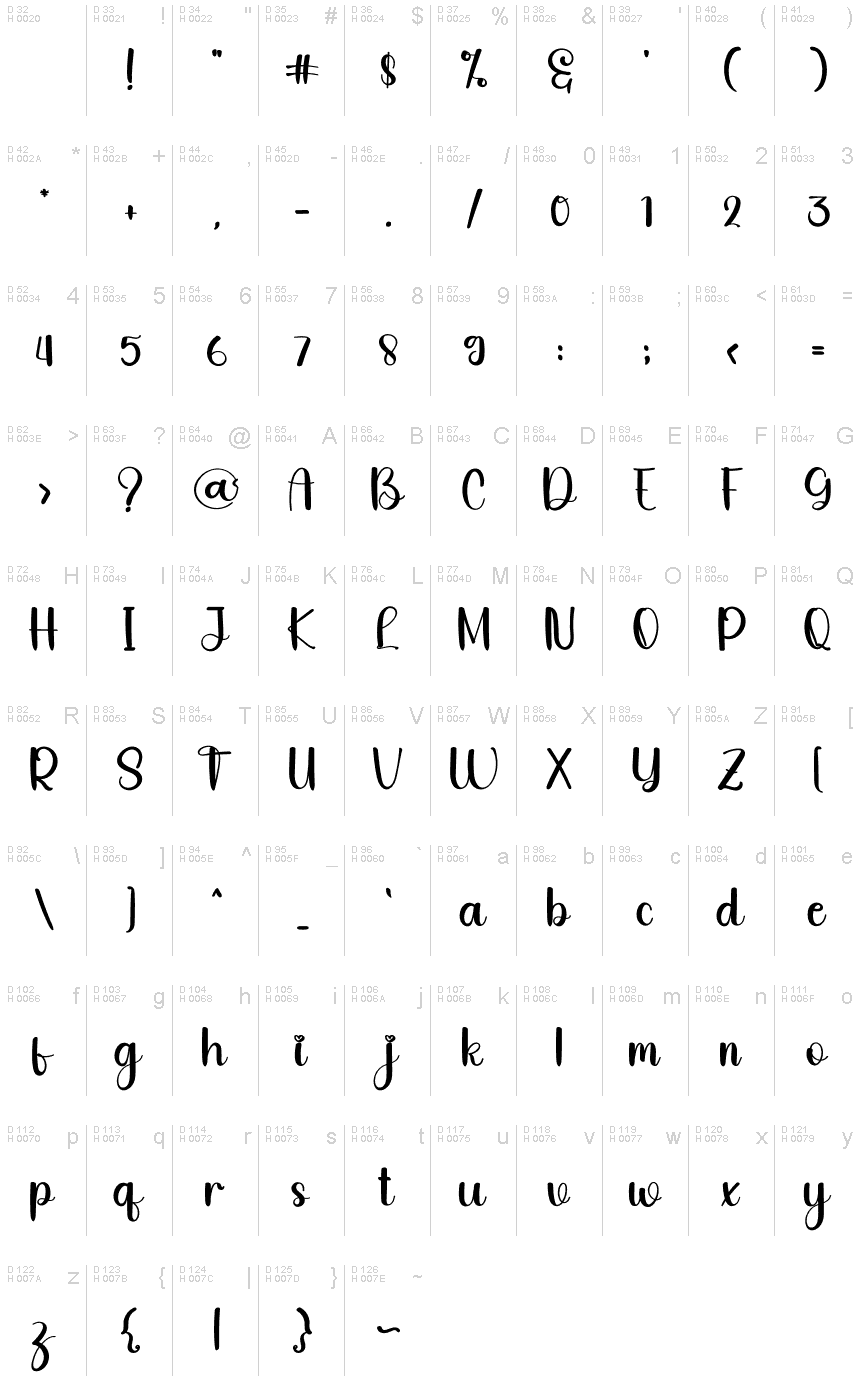
Pastela
Pastela, a charming handwritten font by Inermedia Studio, adds a touch of whimsy to your designs. With its semi-bold weight, this font exudes confidence while maintaining its playful character.
Perfect for children's book covers, greeting cards, and scrapbooking projects, Pastela captures the essence of creativity and imagination. Its graceful curves and fluid strokes bring a sense of warmth to any design, making it ideal for invitations and personalized stationery.
Express your unique style with Pastela's delightful handwritten charm that will surely leave a lasting impression.